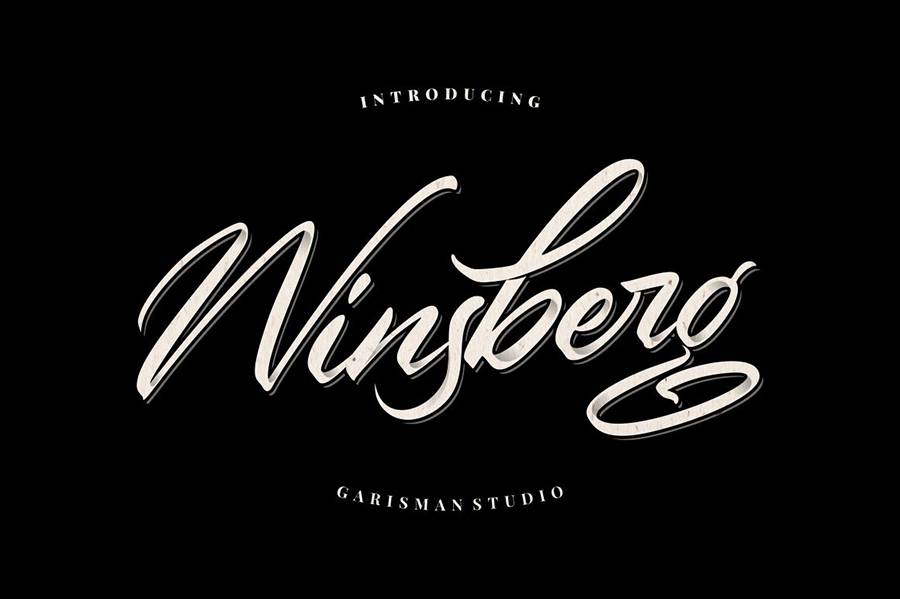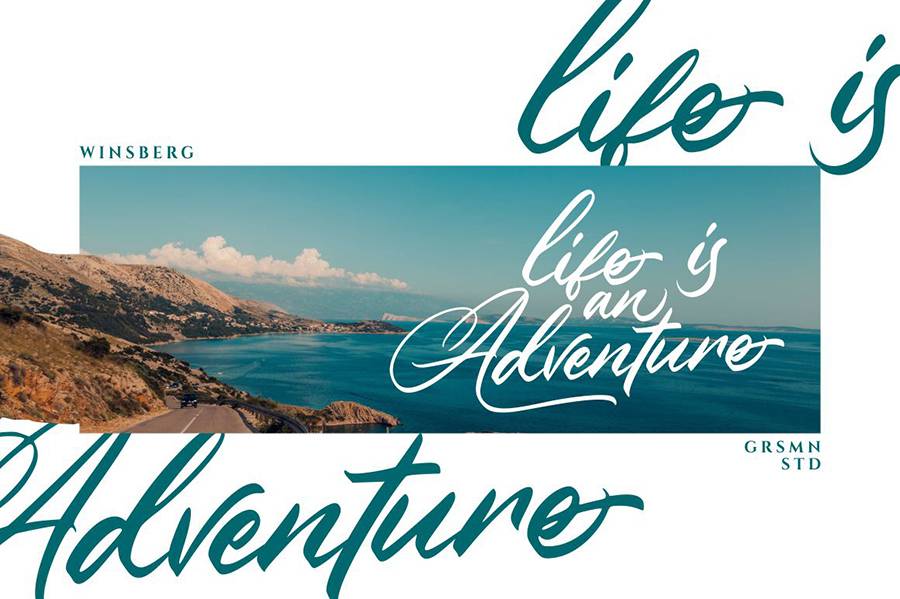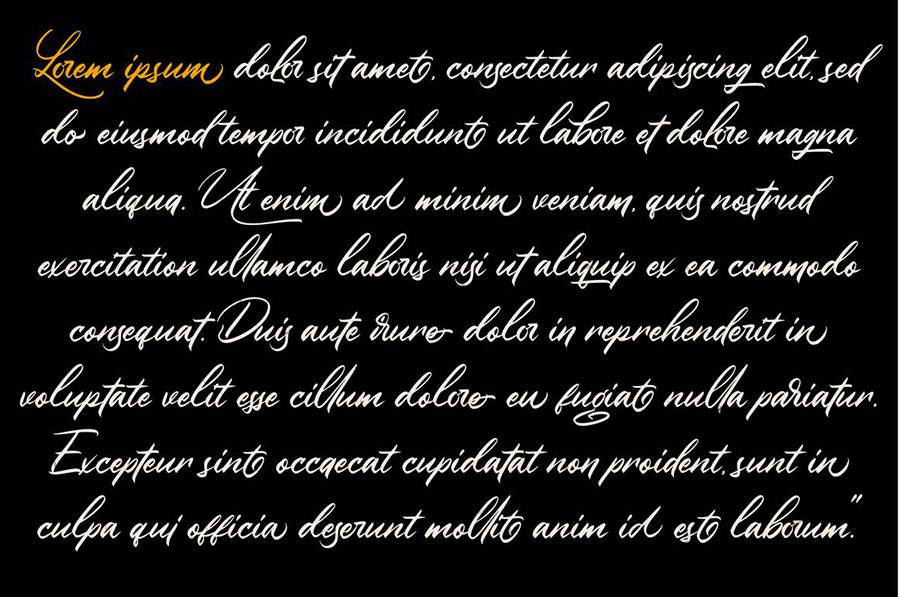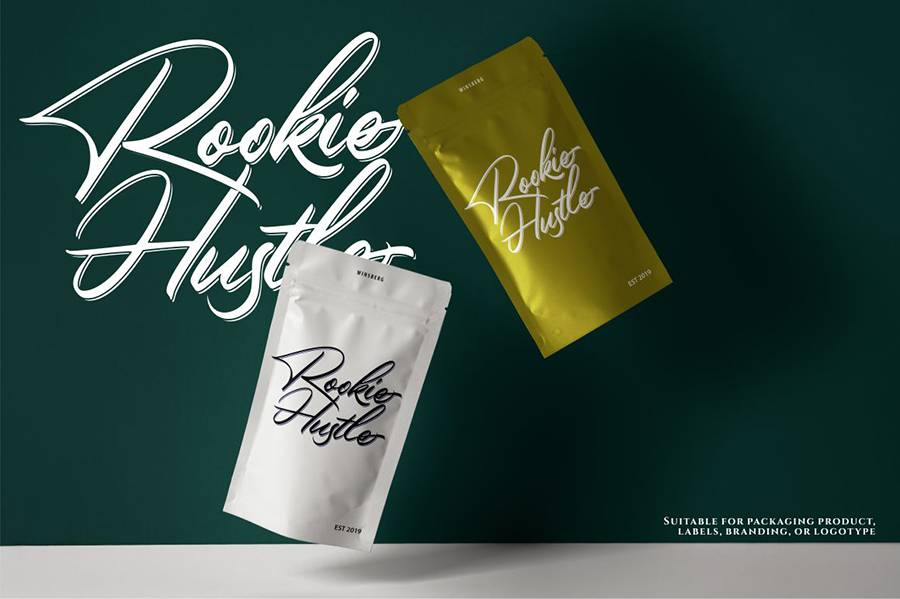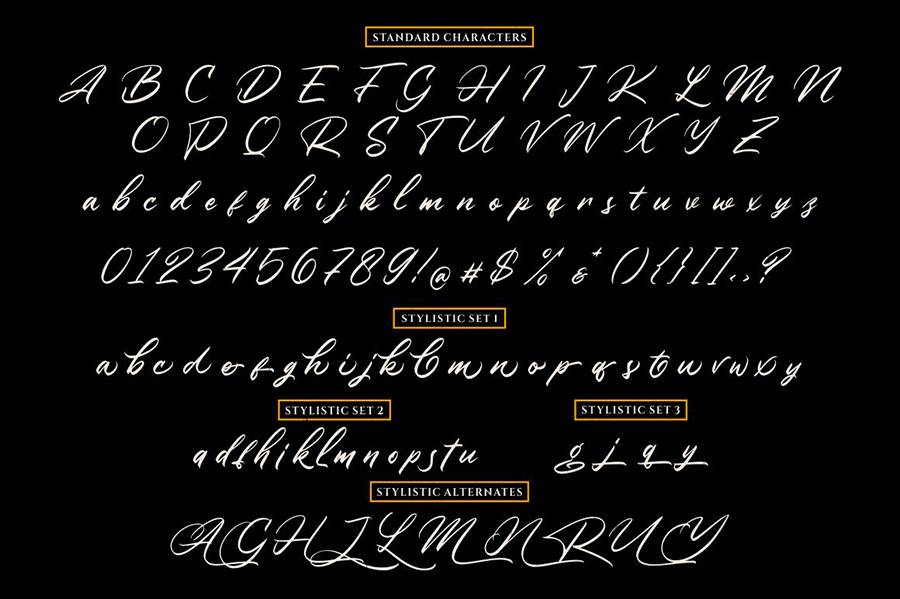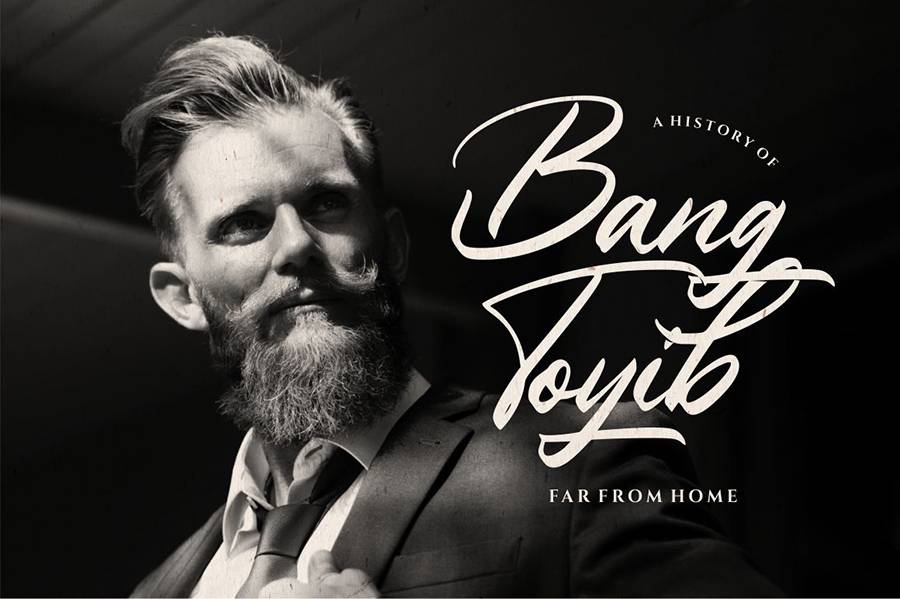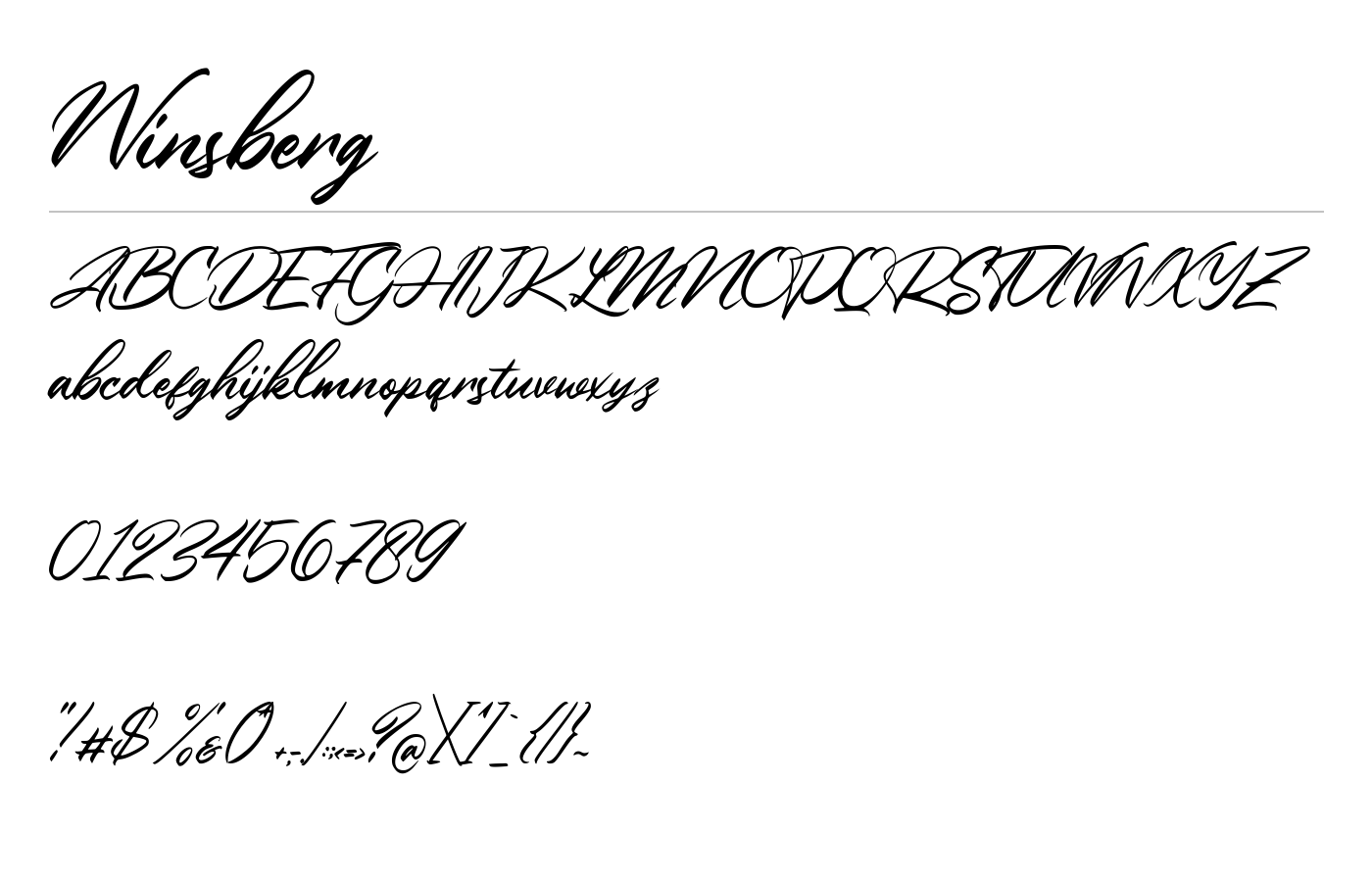
Winsberg Handlettering Script is a graceful and flowing script font that captures the charm of elegant handwritten calligraphy. Its slender, slightly slanted strokes with smooth curves give it a refined and personal feel, making it perfect for sophisticated branding, invitations, and stylish editorial use. This font conveys warmth and elegance, ideal for adding a touch of luxury and personality to projects.
Winsberg Handlettering Script
About Winsberg Handlettering Script